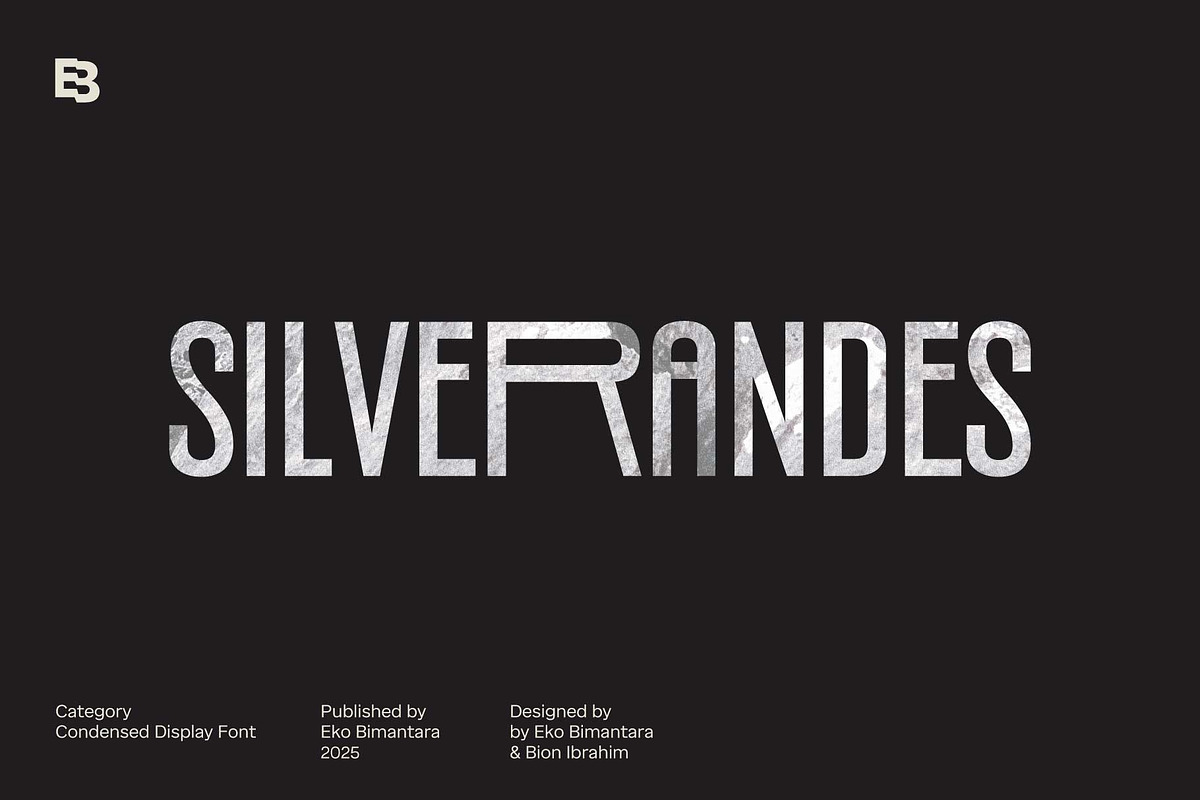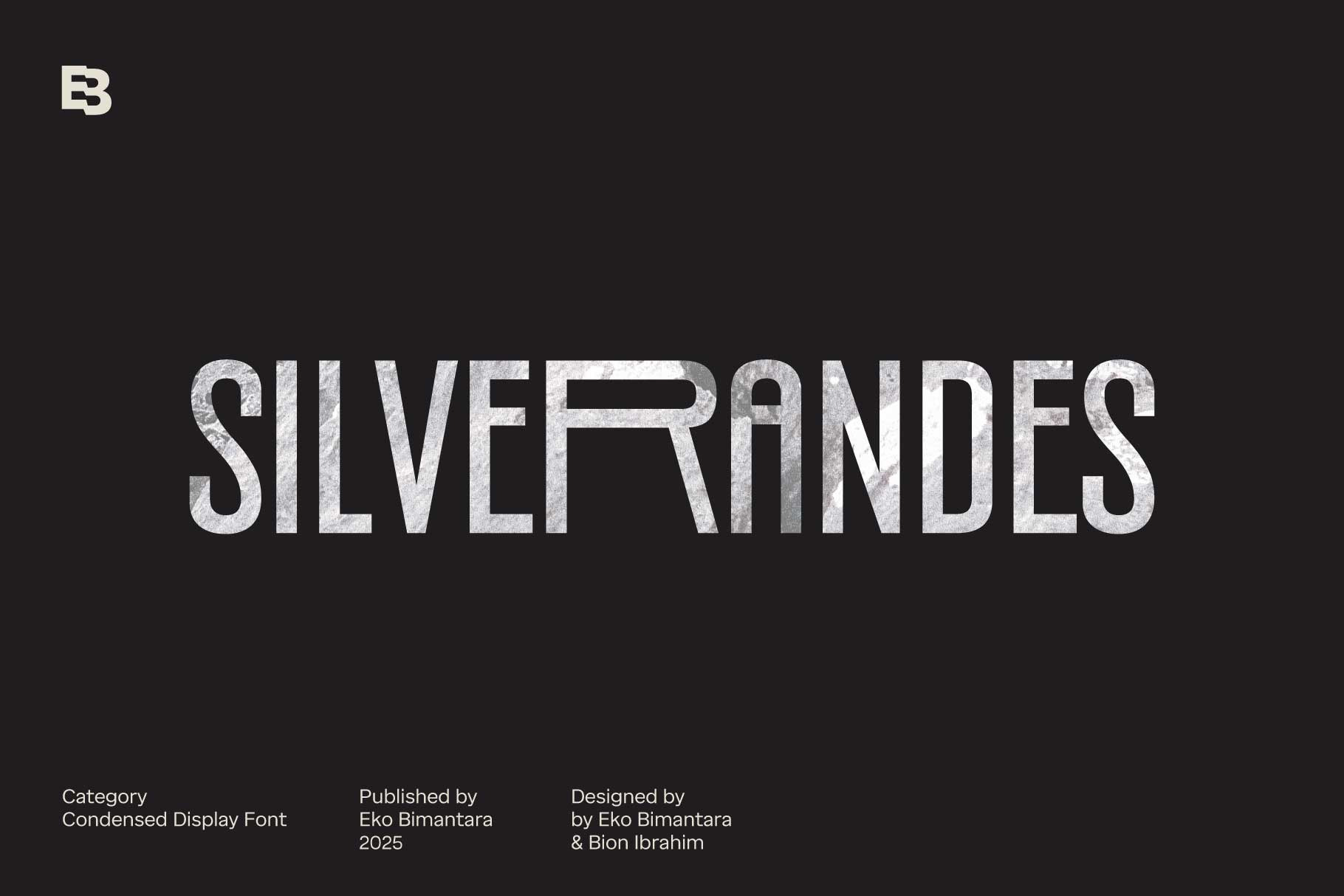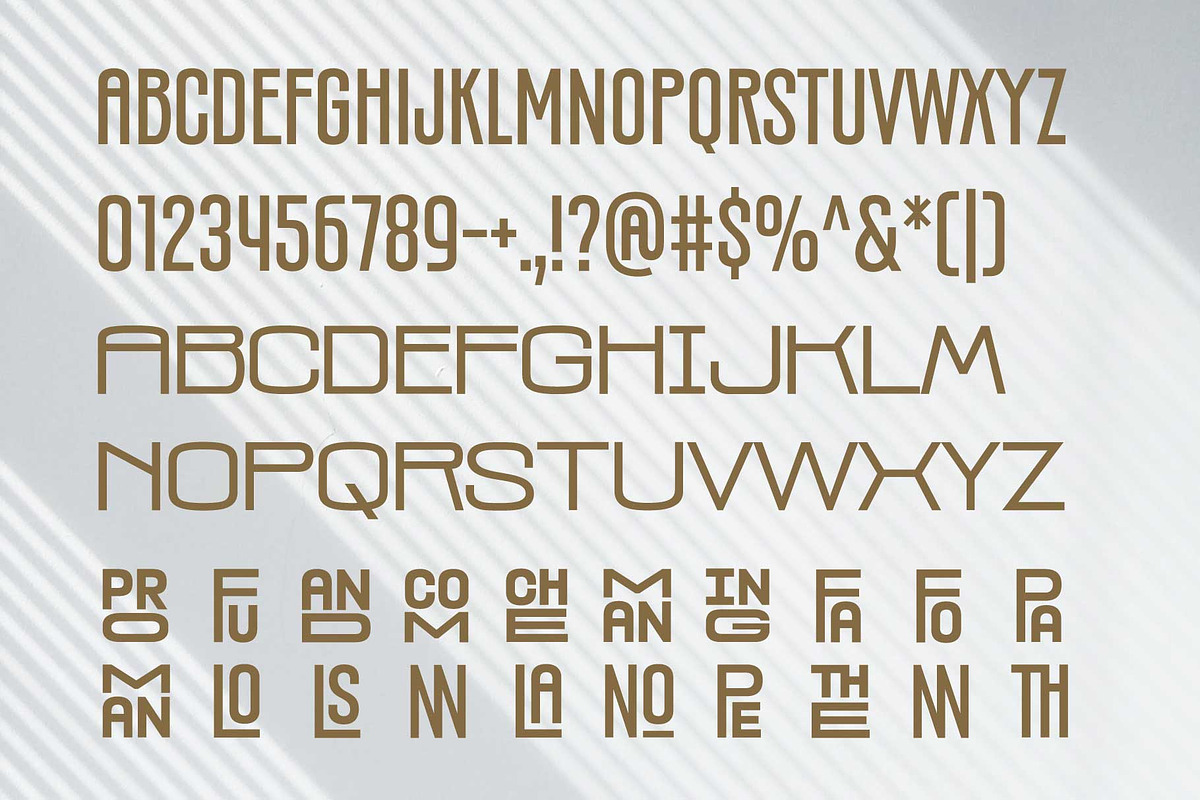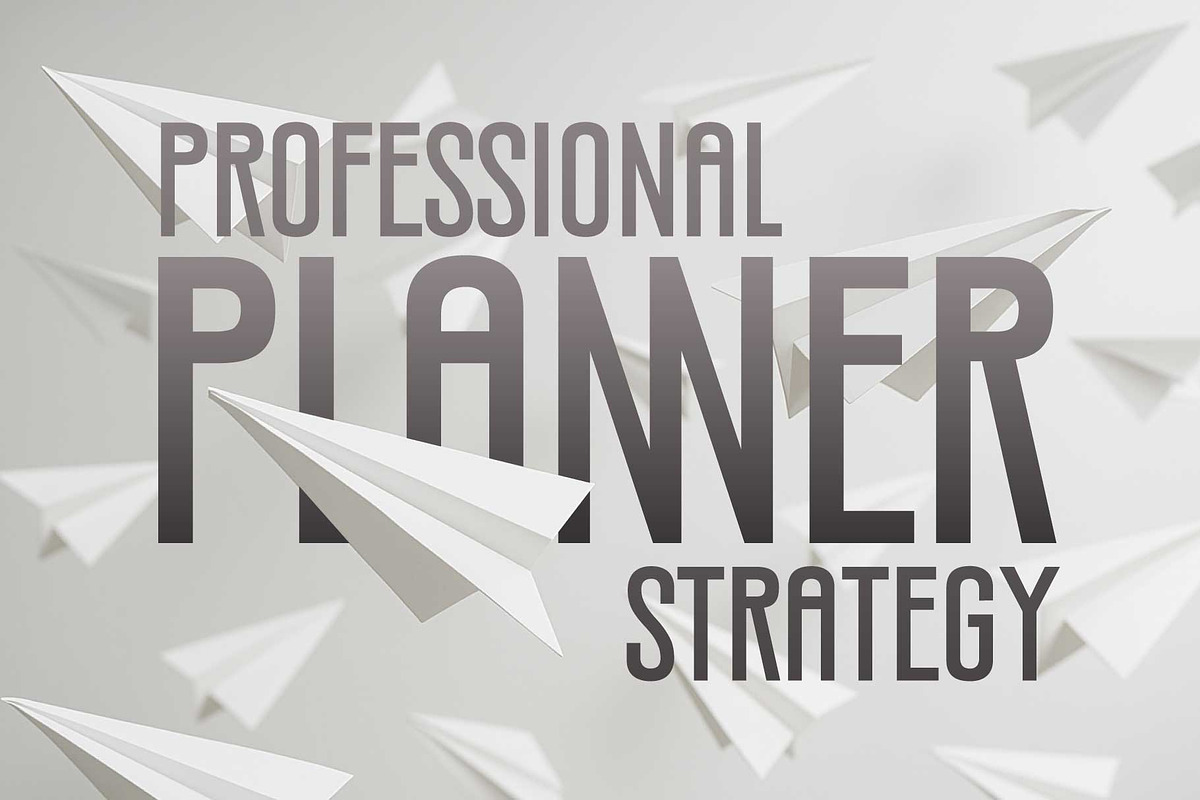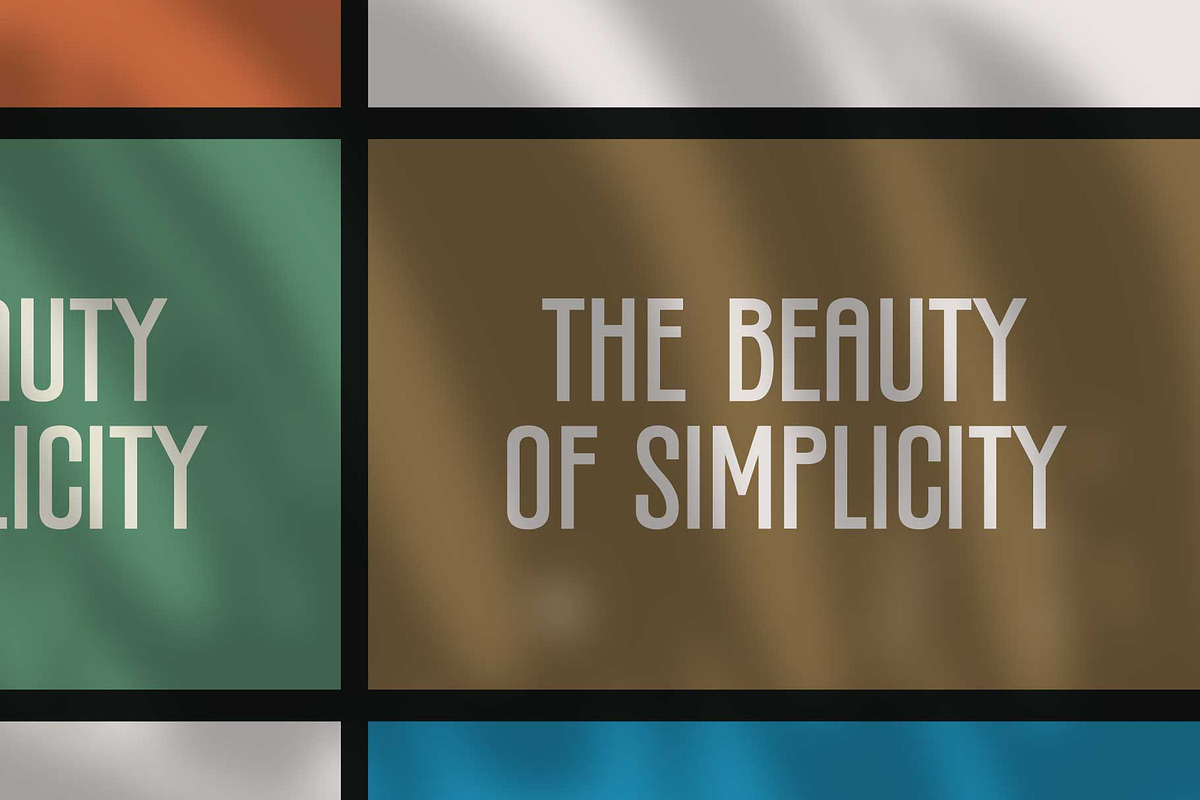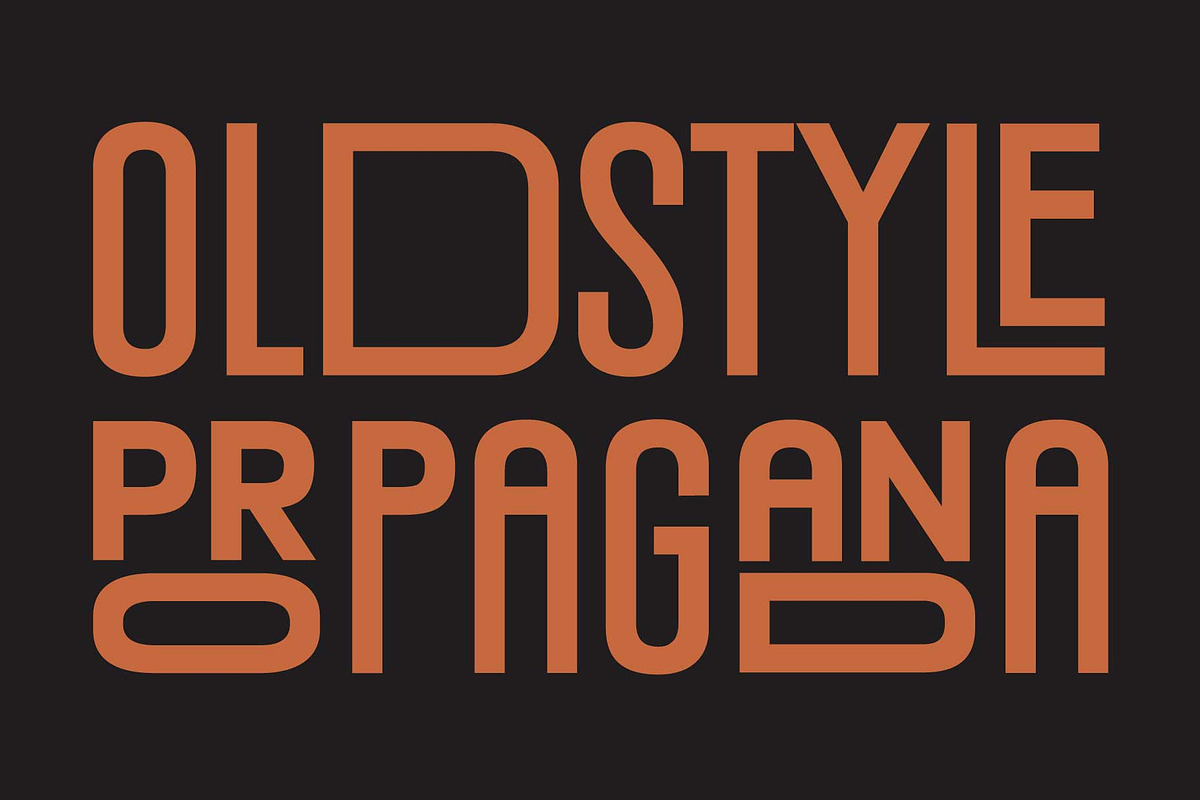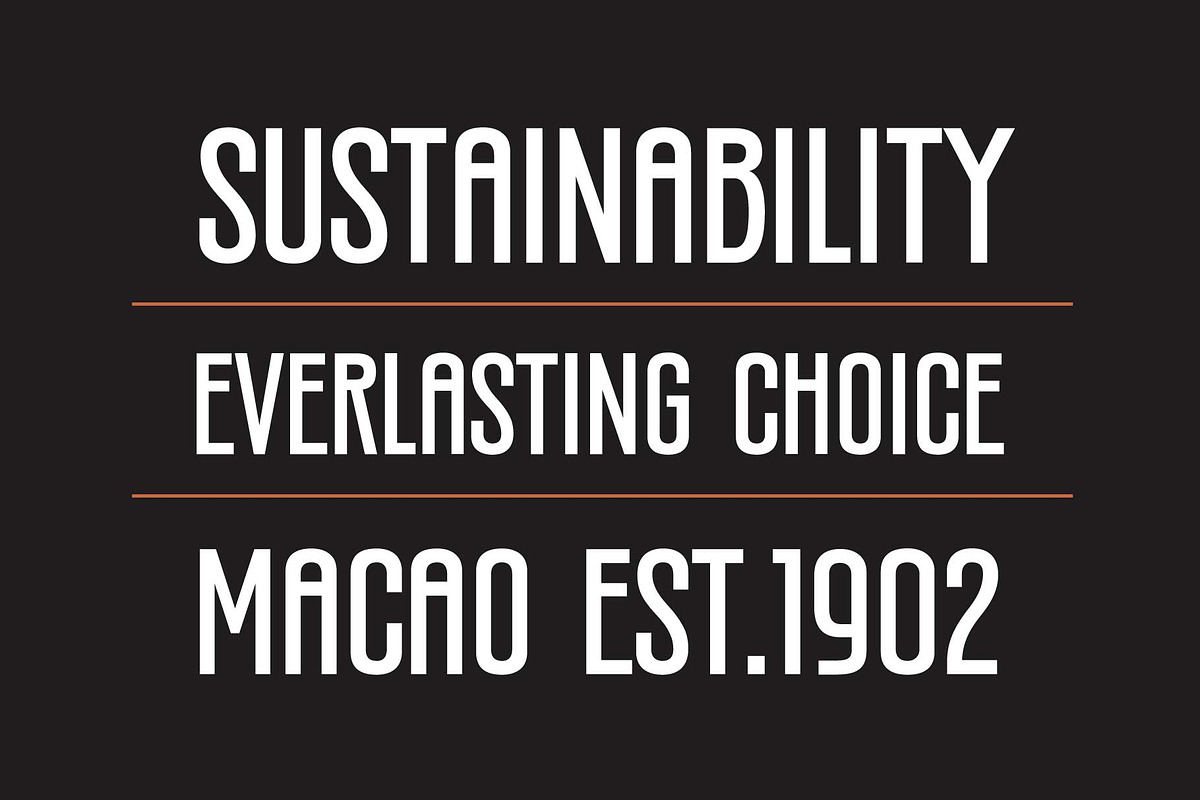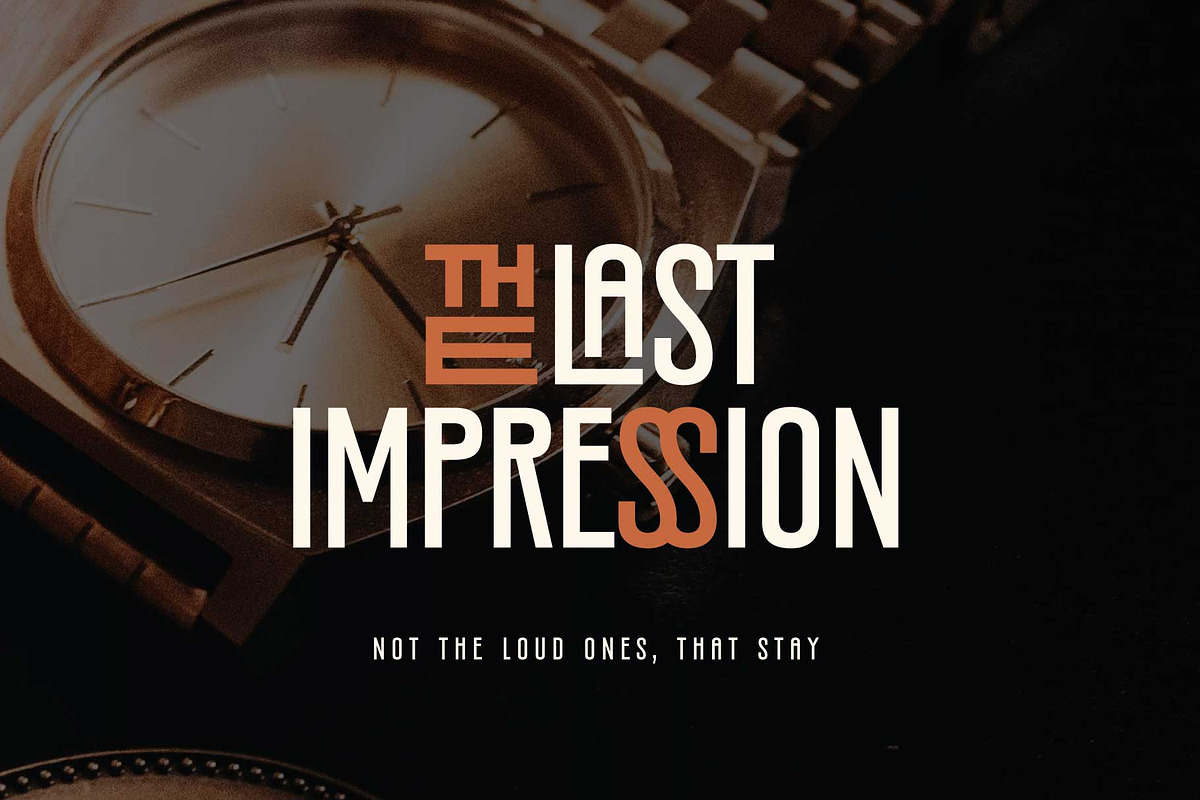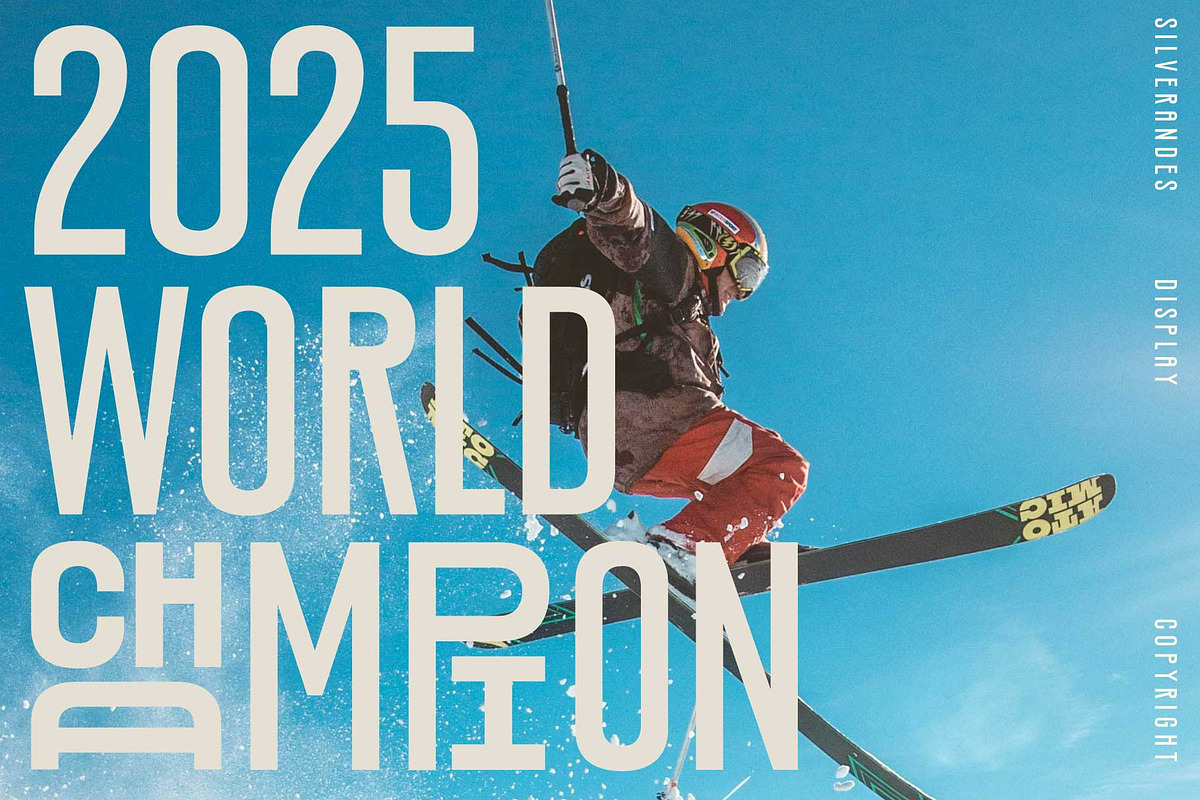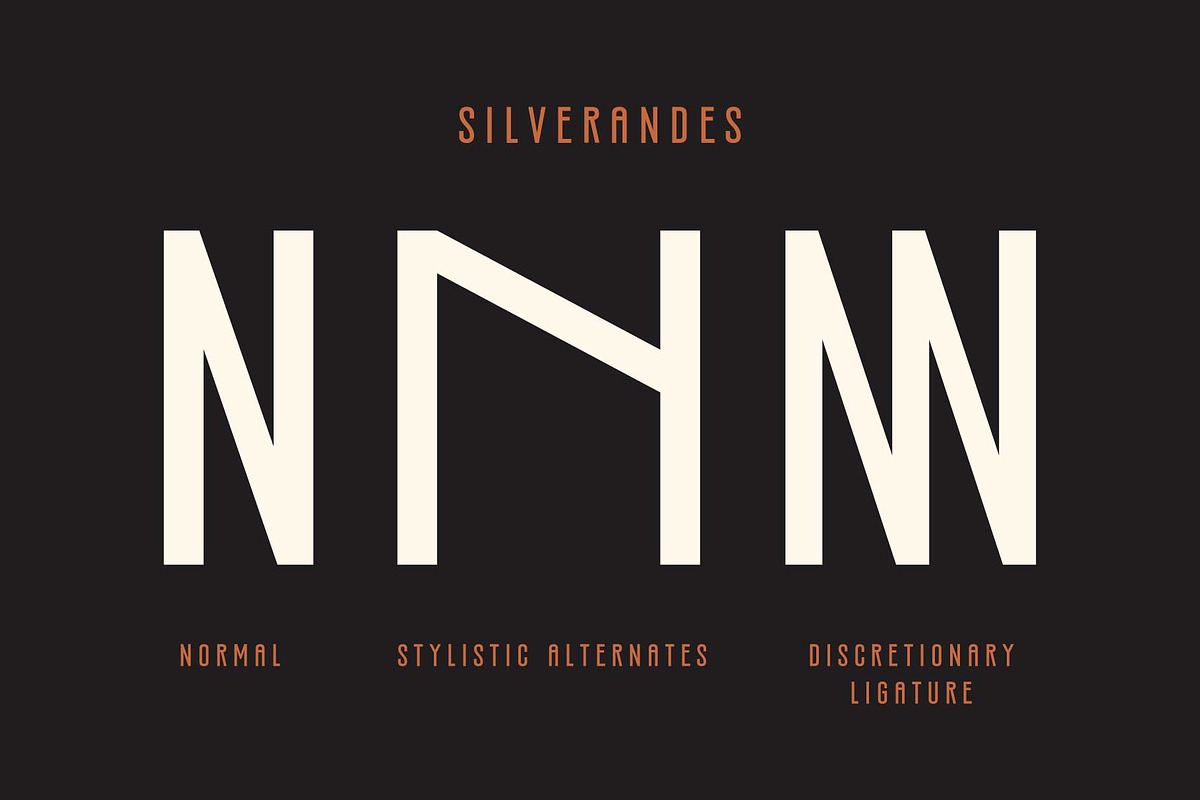
Silverandes; Condensed Display Font
Silverandes is a condensed sans serif font that blends modern elegance with bold, distinctive character. Designed with a refined yet compact structure, it features unique letterforms and an abundance of stylistic alternates, allowing for creative flexibility and customization across various design contexts. One of its standout features is the use of discretionary ligatures, which form compact and artistic letter compositions—adding a sophisticated edge to headlines, logos, and branding work. Silverandes carries a classy and confident presence, making it highly suitable for projects that require a strong visual identity while maintaining a sense of style and modernity. Its versatility allows it to adapt seamlessly across a wide range of themes, from editorial design to web interfaces, product packaging, and high-impact brand visuals.